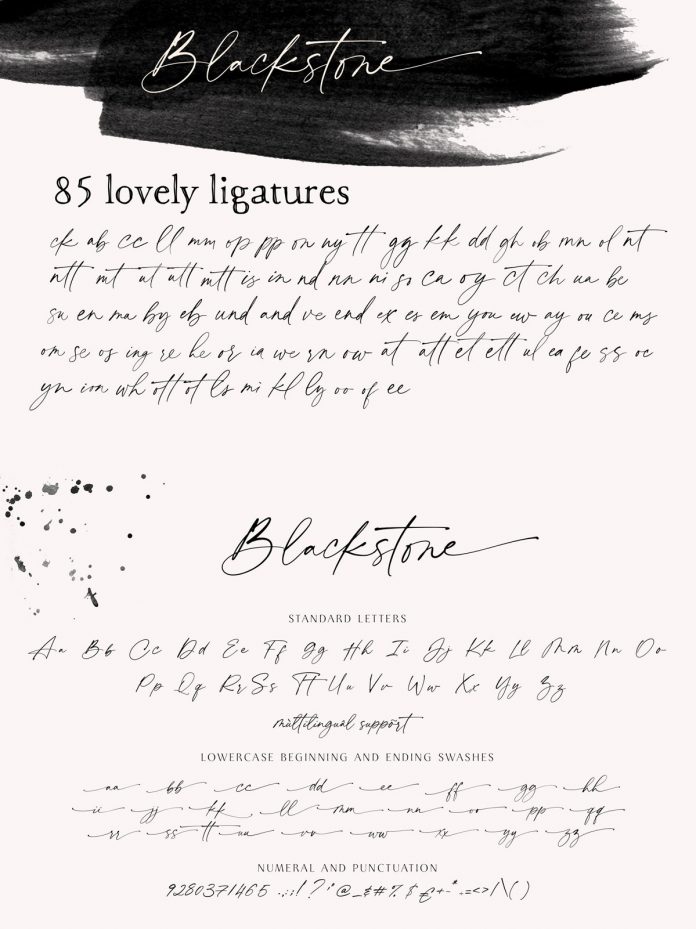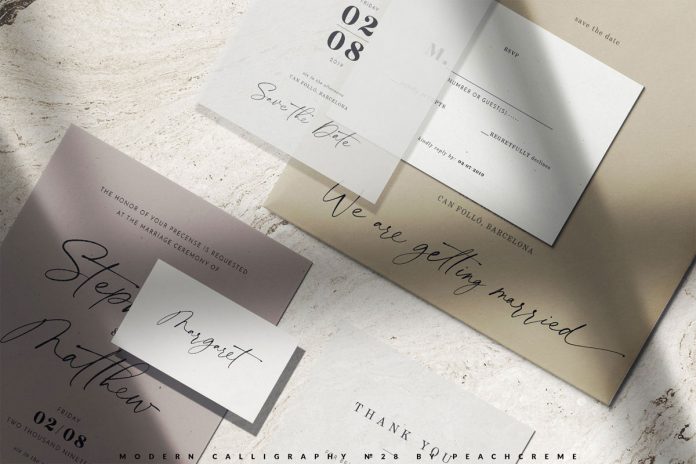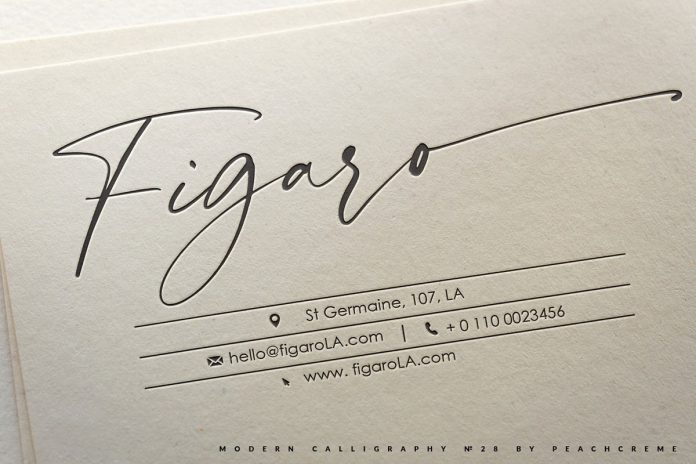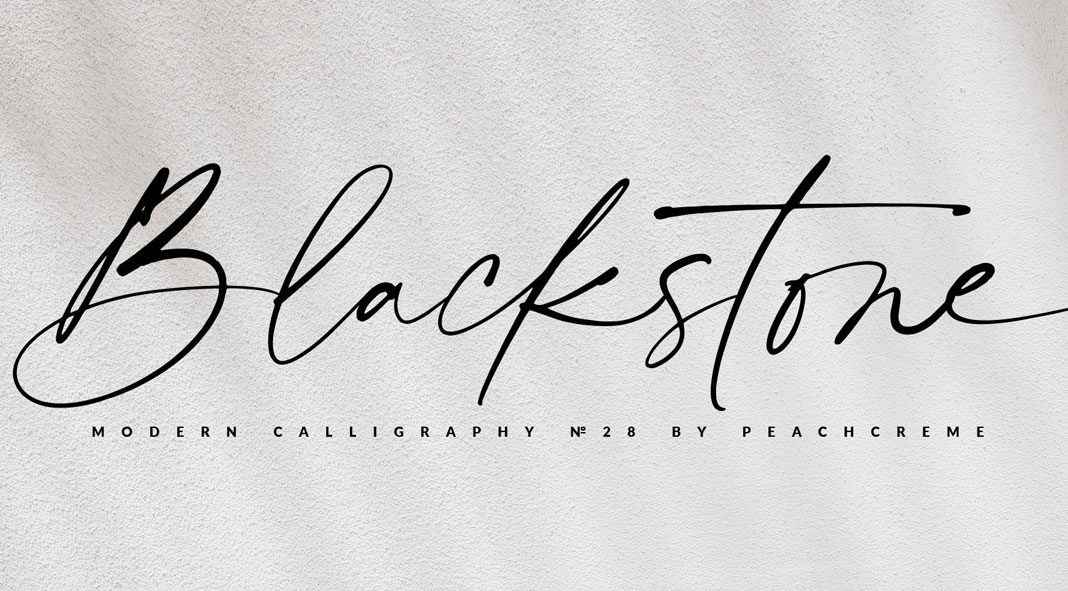
Say hello to Blackstone, an elegant calligraphy font from studio PeachCreme.
The Blackstone font is based on a delicate calligraphic style that has been mixed up with a contemporary flair. Drawn by hand, it is made for invitations, branding projects, greeting cards, packaging, etc. The typeface comes with an extensive set of uppercase and lowercase letters as well as numerals, punctuation, and 85 beautiful ligatures. Furthermore, all lowercases include beginning and ending swashes—giving your lettering an even more realistic hand-drawn look.